Great writing deserves to be read. But poor typography can turn even the best story into a struggle.
Fonts aren’t just decoration, they’re the invisible guide that shapes how easy (or hard) your book is to read. The right typography keeps readers immersed. The wrong choice causes frustration, fatigue, and quick exits.
Whether you’re self-publishing or going through a traditional publisher, smart font choices and thoughtful layout can make your book not only look great, but feel great to read. Here’s how to get it right.
In this blog, you’ll discover which fonts actually work and why thoughtful typography can be the difference between a book that gets read and one that gets ignored.
Typography in Book Layout: Why It Matters?
Typography is one of the most important and underrated, parts of book design. It’s not just about choosing pretty fonts; it’s about guiding the reader’s eye, setting the tone, and making your content effortless to consume.
- Typography impacts reading speed and comprehension.
- The right fonts keep readers focused and engaged.
- Good typography enhances professionalism and credibility.
- Fonts help set the emotional tone and genre expectations before readers begin.
Key Typography Elements That Affect Readability
To create a comfortable and engaging reading experience, these are the core elements to pay attention to
Font Type
- Serif fonts (like Garamond or Baskerville) are traditionally easier to read in printed books.
- Sans-serif fonts (like Helvetica or Lato) are clean and modern, often used for digital formats or headings.
Font Size & Line Spacing (Leading)
- Body text typically works best between 10–12 pt.
- Line spacing should be 120–145% of the font size to avoid a cramped look.
Line Length & Margins
- Ideal line length is 50–70 characters.
- Wide margins improve readability and give the layout breathing room.
Kerning & Tracking
Best Fonts for Typography in Book Layout
Choosing the right fonts is essential for readability and aesthetics. Your font choices set the tone and help keep readers immersed in your content.
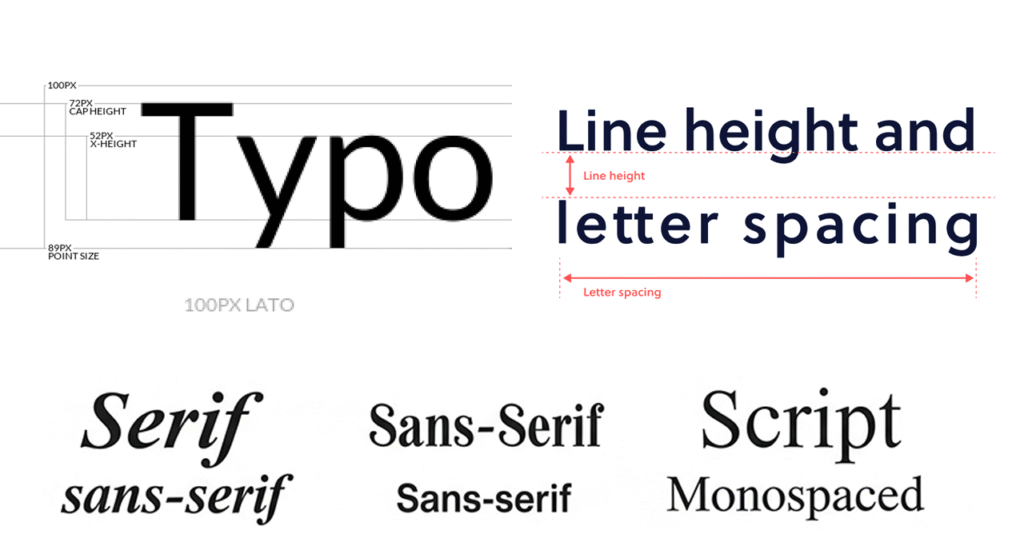
Serif Fonts for Body Text
Sans-Serif Fonts for Titles & Headings
Real-world examples of typefaces used in publishing
Typography in Book Layout: Matching Font to Genre
- Pair a serif font for the body with a sans-serif for headers to create contrast and hierarchy.
- Avoid pairing fonts that are too similar, it can feel redundant or clash visually.
- Use no more than two font families to maintain a clean, cohesive design.
Common Mistakes to Avoid in Typography
Even great content can feel amateurish if the typography goes wrong. Avoid common design mistakes that hurt your book’s success.
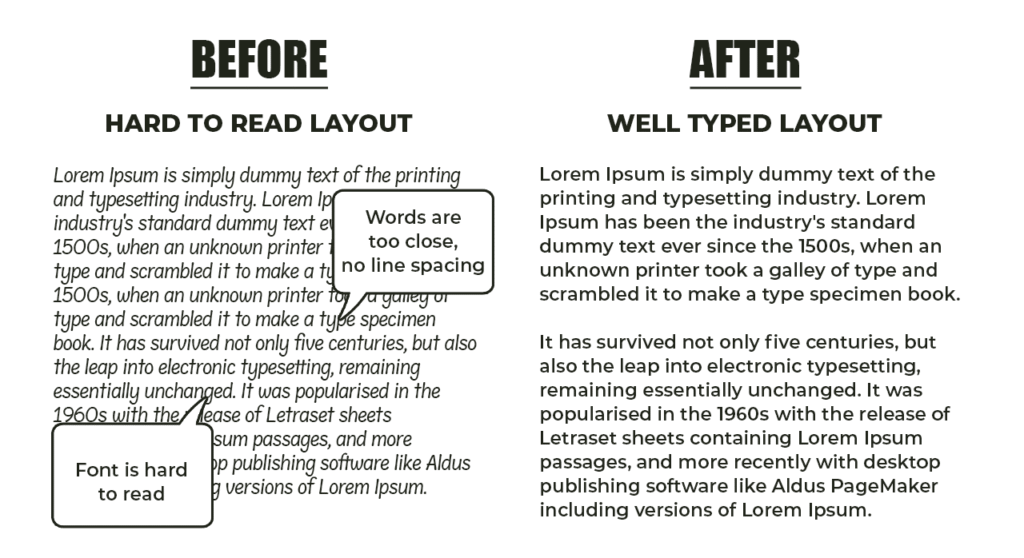
Common Typography pitfalls to Avoid
Typography in Book Layout for Print vs. Digital Books
Typography behaves differently depending on format. A layout that works for print may not translate perfectly to digital and vice versa.
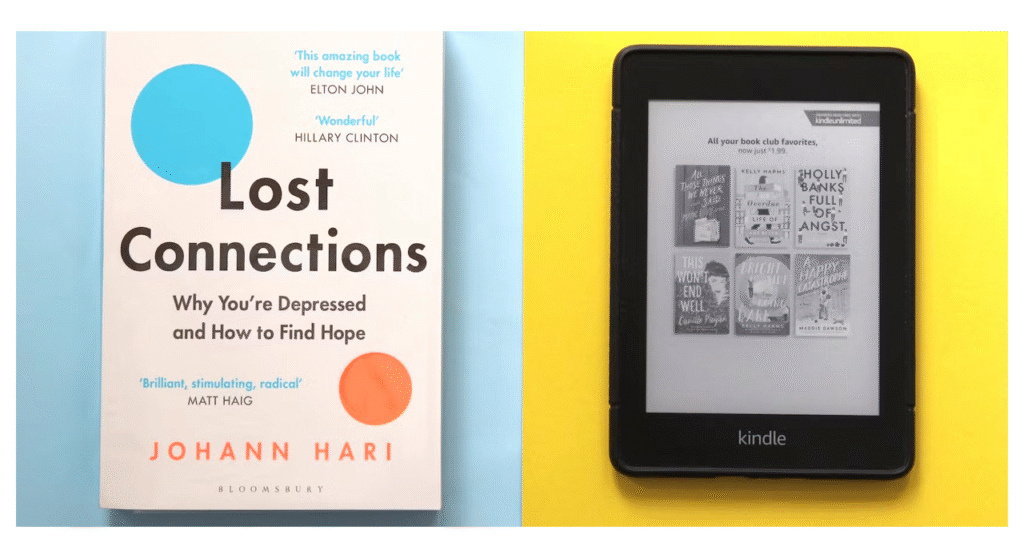
Print Design Considerations
- Fixed layout: You control exactly how the text appears.
- Fonts must be readable at actual printed size
- Manage leading, margins, and hyphenation carefully.
- Test for readability in both bright light and low light.
Optimizing Typography in Book Layout for eBooks
- Reflowable layout: Readers can resize fonts and change settings.
- Choose fonts that scale well and maintain spacing (like Georgia or Lato).
- Avoid layouts that rely heavily on fixed spacing.
- Be aware of device overrides (Kindle, Apple Books).
Physical book layout with fixed margins and justified text, and a digital e-reader with reflowable text.
Do fonts look different in eBooks versus print?
Yes! Fonts can be replaced by devices or enable readers to replace them, so the scalable, adaptive fonts such as Georgia or Lato should be used in digital versions.
Can I mix serif and sans-serif fonts in my book?
Yes, pairing serif for body text and sans-serif for headings creates contrast and improves readability.